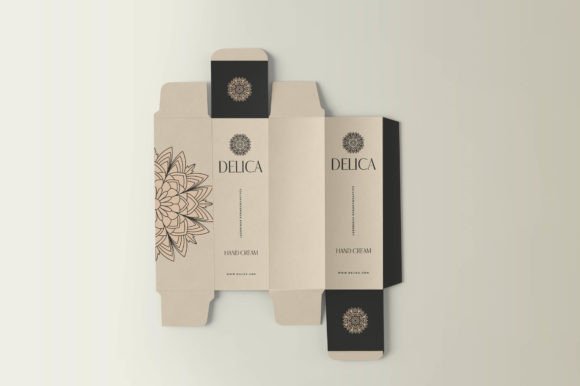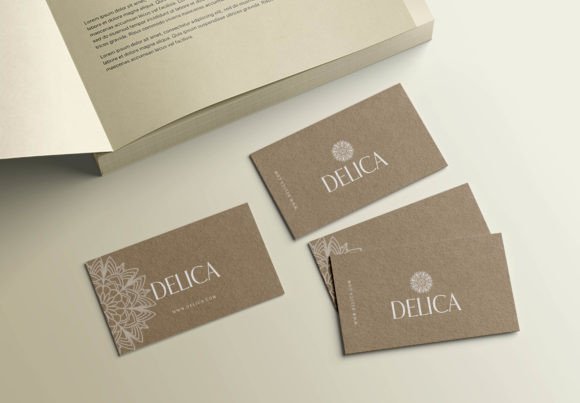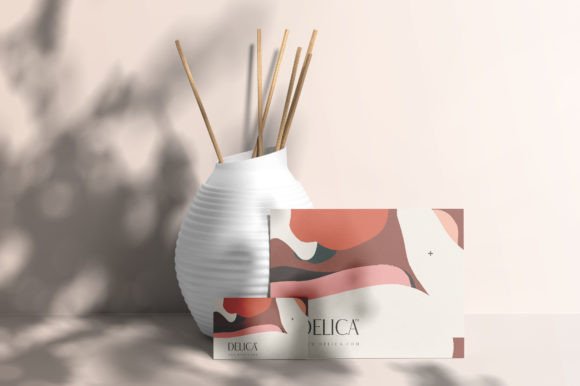
Delica is an elegant delicate serif typeface.
Its elegant appearance and precise glyph structure make it the perfect choice when it comes to packaging design, fragrance design, titling, cosmetics design, website banners, and many more Use it in your creations so you can notice how fastly it becomes one of your favorite fonts.